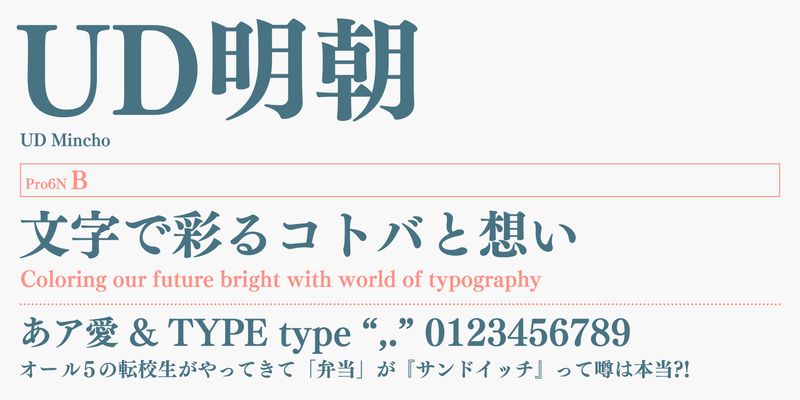
FOT-UDMincho Pr6N Font Free Download is a refined serif typeface designed with universal design (UD) principles, ensuring superior readability and accessibility. It’s ideal for educational materials, official publications, long-form reading content, and any project where both elegance and legibility are key. With clear strokes and a balanced structure, this Mincho-style font performs beautifully in both print and digital formats.